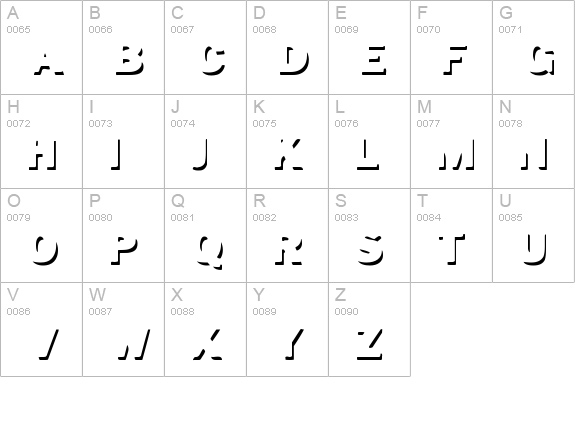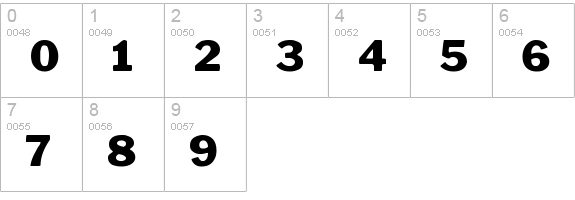
Down Town Auto Font Details
Down Town Auto is a sleek and modern font that perfectly captures the essence of urban sophistication. With its clean lines and bold presence, this typeface is designed to make a statement and leave a lasting impression. Whether you're creating a logo for a trendy automotive shop or designing eye-catching posters for a car show, Down Town Auto will elevate your project to new heights. What sets Down Town Auto apart is not only its striking design, but also its versatility. This font can effortlessly adapt to various design styles, making it suitable for a wide range of applications. From sleek and minimalist designs to bold and dynamic compositions, Down Town Auto can do it all. But what truly makes Down Town Auto stand out from the crowd is its accessibility. This font is freely available to download at FontsMarket.com, allowing designers and enthusiasts alike to easily incorporate it into their projects without breaking the bank. With its high-quality design and free accessibility, Down Town Auto is the perfect choice for anyone looking to add a touch of urban sophistication to their designs. So why wait? Download Down Town Auto today and unleash your creativity. Whether you're a professional designer or a passionate hobbyist, this font will undoubtedly elevate your work and help you make a bold statement. Embrace the urban vibes and let Down Town Auto be your go-to font for all your automotive-inspired designs.